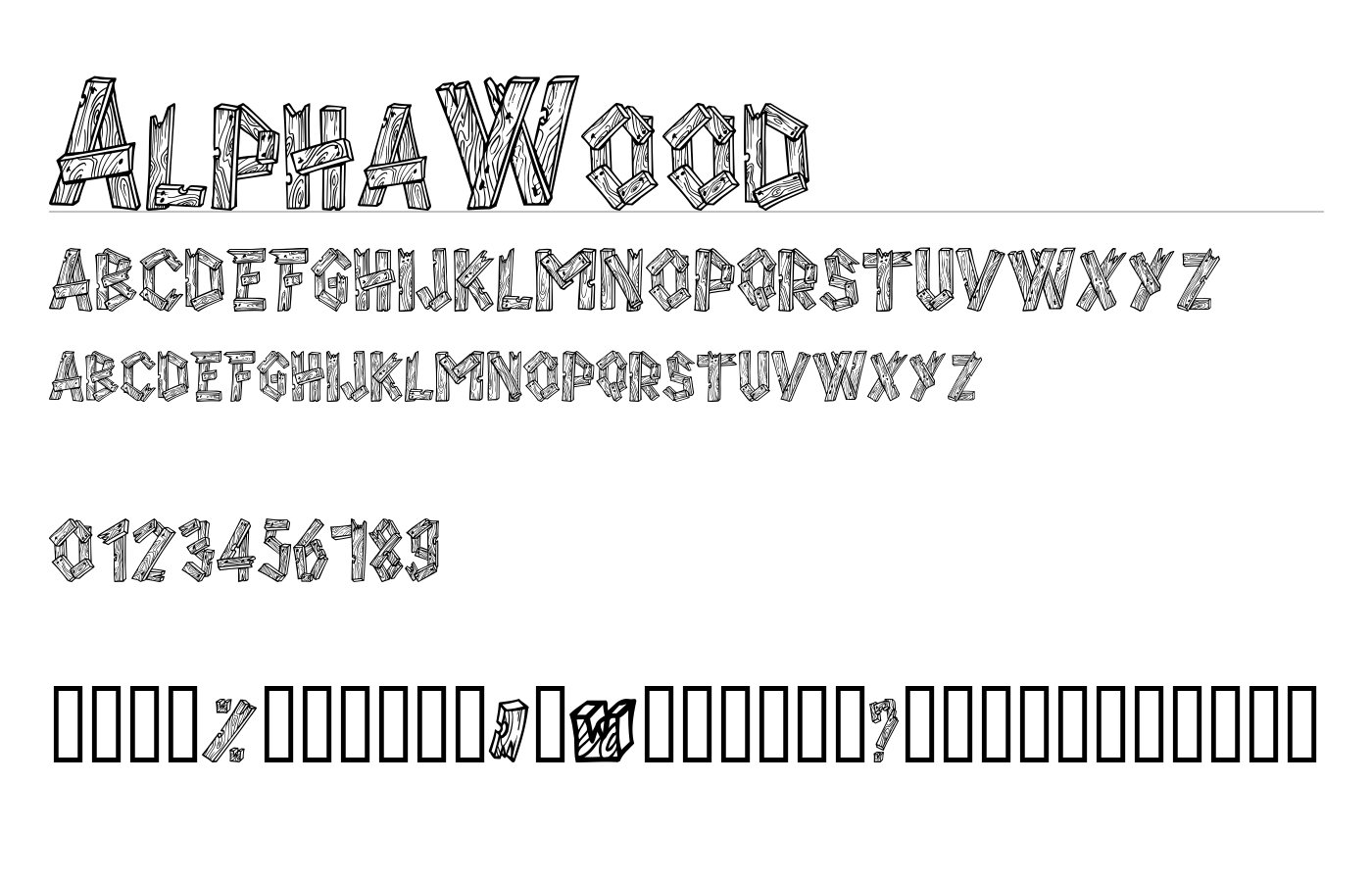
AlphaWood is a playful and decorative display font that mimics the texture and structure of wooden planks, giving each letter a unique, handcrafted feel. Its bold, textured design is ideal for creative logos, posters, and packaging that want to evoke a rustic, natural, or crafty vibe. This font works best in large sizes and headline use where its detailed style can truly stand out.
AlphaWood Font
About AlphaWood Font